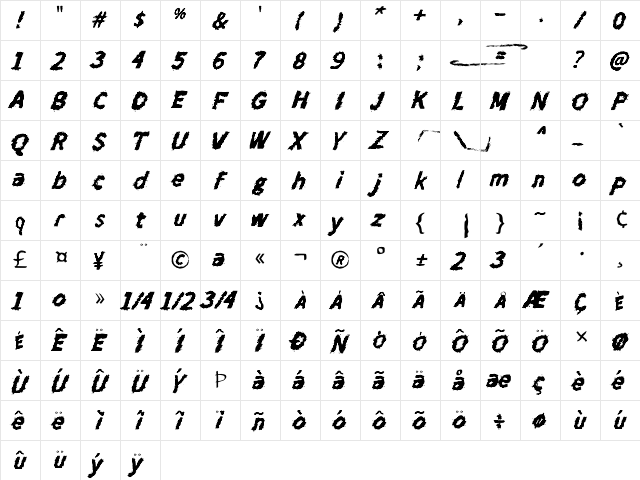
Complete Berduri Sans Regular glyph index. Displaying only characters natively supported by Berduri Sans Regular font.
Berduri Sans is a composed and adaptable typeface that performs quietly and consistently across a wide range of design contexts.